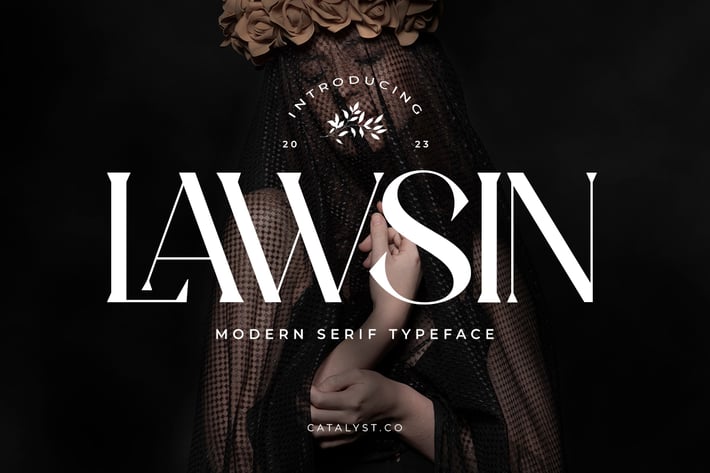
Lawsin Modern Serif Typeface Font
Lawsin Modern Serif Typeface Fontis a luxury modern serif typeface featuring sharp high-contrast strokes, sculpted curves, and elegant editorial proportions. Its refined artistic cuts and contemporary styling create a sophisticated visual identity suited for fashion branding, magazine headlines, beauty campaigns, and high-end creative projects. The graceful serif detailing and sleek character design give every layout a bold, elevated presence. Includes uppercase, lowercase, numerals, punctuation, and symbols in OTF, TTF, and WOFF formats.
Relevance and Use Cases is perfect for luxury branding, fashion magazines, editorial headlines, beauty campaigns, modern packaging, creative advertising, high-end product identities, posters, and stylish display compositions that require an elegant serif aesthetic.Suitable for fashion branding, editorial layouts, luxury packaging, social media campaigns, posters, beauty advertisements, high-end product identities, and modern visual storytelling that requires a premium serif style.
Main Features
Ligatures & Alternate
Numeral & Punctuations
* Multilingual Support